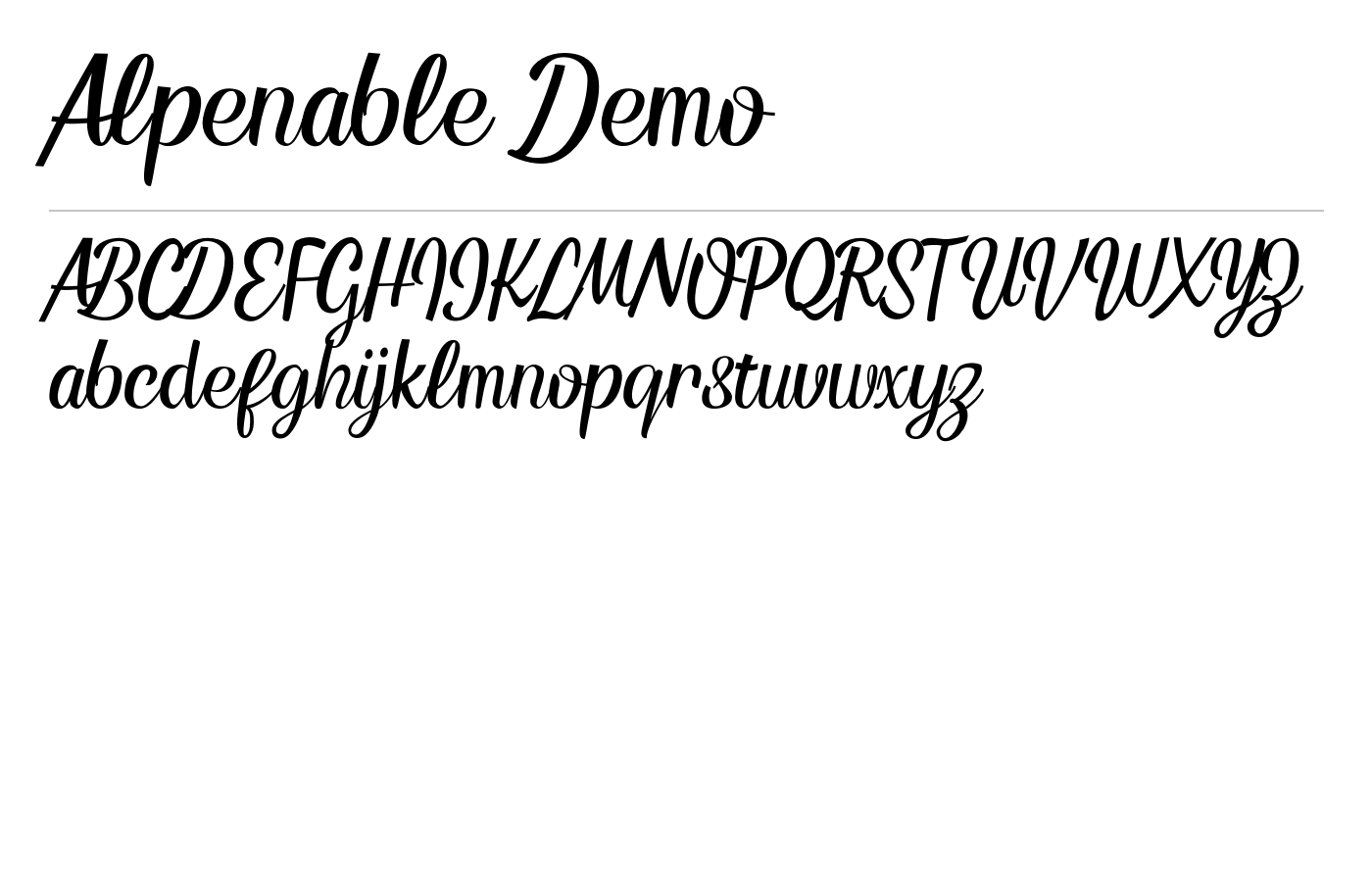
Alpenable Demo is a stylish script font with a smooth, flowing character that combines elegance and readability. Its medium weight and slightly condensed letterforms, featuring unique loops and swashes, make it ideal for invitations, branding, and creative headlines that need a personal, sophisticated touch. This font works especially well where a warm, artistic vibe is desired without sacrificing clarity.
Alpenable Demo Font
About Alpenable Demo Font
| Font family | Alpenable Demo Font |
| Designer | Putra Khan |